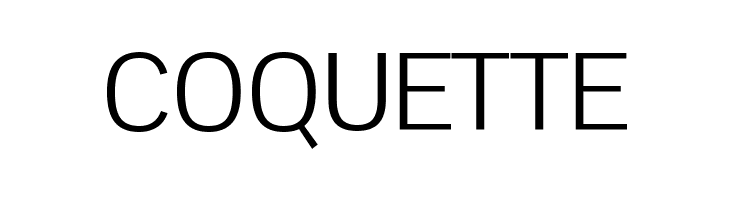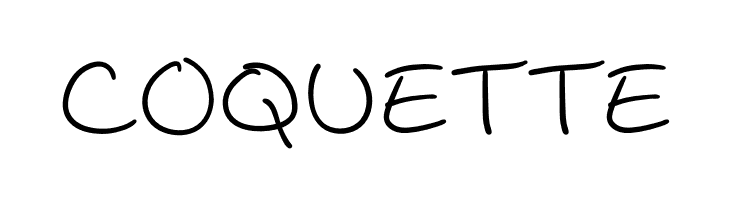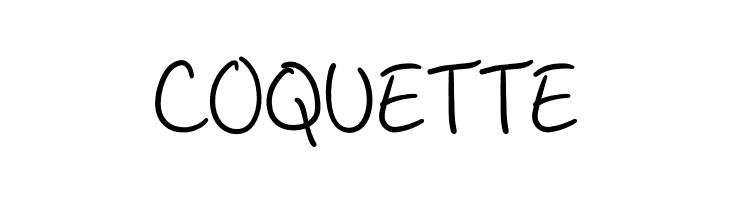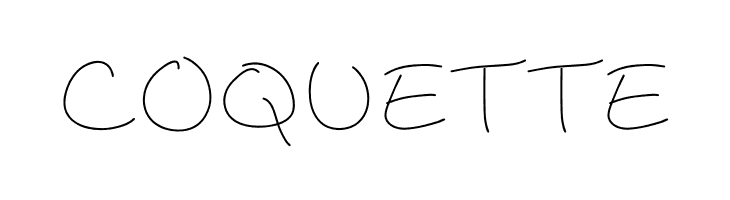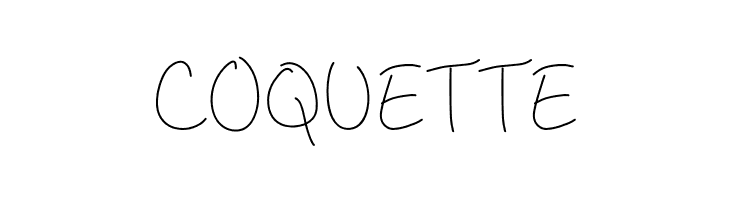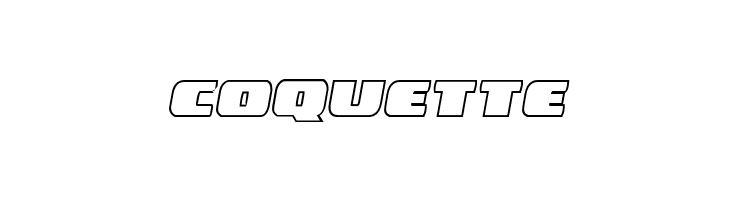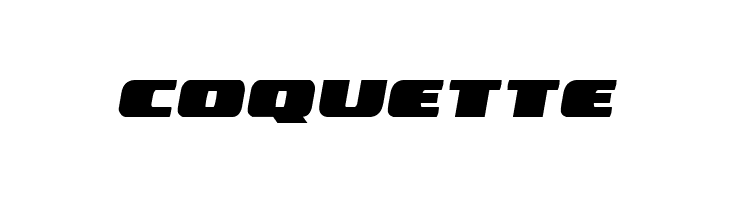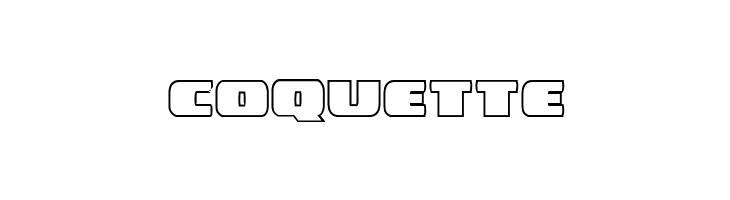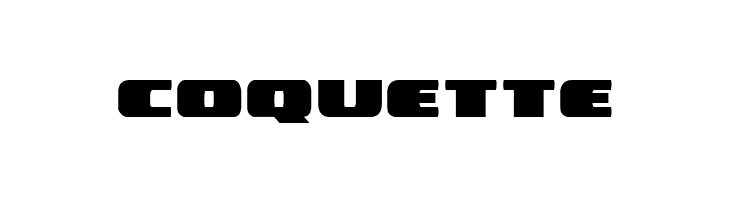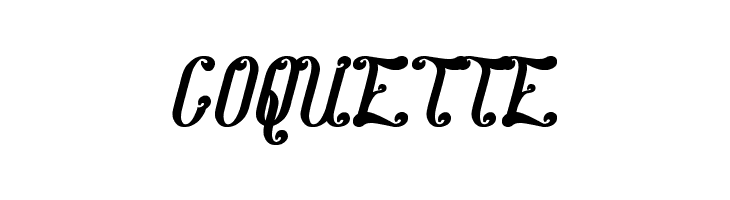
A futuristic, geometric font with angular edges and consistent thickness.
A bold, 3D italic font with a futuristic and dynamic style.
A bold, 3D font with a modern, geometric style and strong visual impact.
Bold, condensed font with a modern, geometric style.
A bold, condensed, and italicized font with a dynamic and impactful style.
A bold, modern font with a futuristic and impactful design.
A bold, expanded, and italicized font with a dynamic and powerful style.
A bold, italicized font with a gradient effect and futuristic style.
A bold, futuristic font with a gradient effect created by horizontal lines.
A bold, italic font with a dynamic and robust style, ideal for impactful designs.
A bold, italicized font with a futuristic and angular design.
A bold, geometric font with a futuristic and modern design.
A bold, italicized font with a dynamic and impactful style.
Bold, italicized font with a dynamic, outlined style.
A bold, outlined geometric font with a futuristic and technical style.
A bold, geometric font with a strong, commanding presence.
A decorative, abstract font with bold, angular lines and tribal motifs.
A bold, decorative font with abstract, geometric letterforms.
A decorative font inspired by Polynesian art, featuring intricate geometric patterns.
A bold, high-contrast font with dramatic serifs and curves.
A modern, clean sans-serif font with balanced spacing and uniform stroke width.
A whimsical and decorative font with playful embellishments and dynamic shapes.
A bold, decorative font with vintage flair and intricate detailing.
A playful, hand-drawn font with a bold, sketch-like texture.
A playful, thin handwritten font with a casual and friendly style.
A playful, casual handwritten font with smooth, flowing lines.
A playful, thin handwritten font with a casual and dynamic style.
A modern, high-contrast font with geometric and artistic elements.
A lively, handwritten cursive font with dynamic strokes.
A bold, handwritten font with a casual and dynamic style.